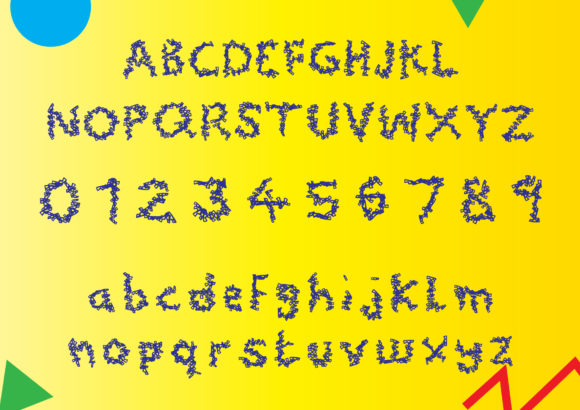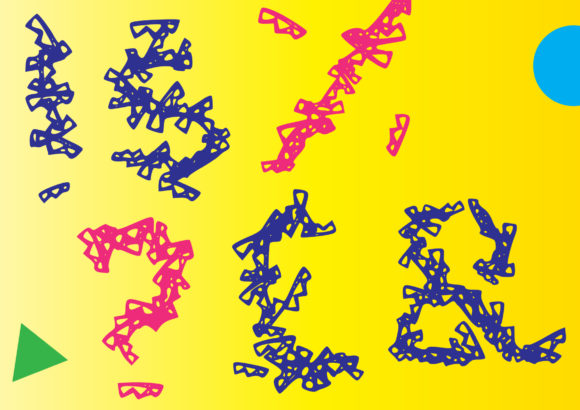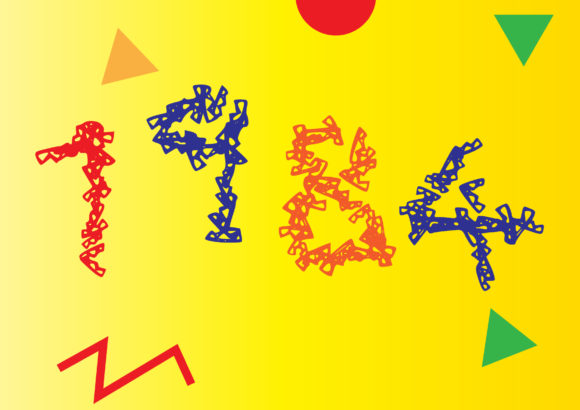
Reviving the Radical: The Eighties Style Font
The Eighties Style Font is a unique and interesting display font that embodies the spirit of the 1980s. A little bit quirky, this font looks incredibly adept on a wide variety of contexts, making it a versatile addition to any designer’s toolkit.
The Aesthetic of the Eighties
The 1980s was a decade known for its bold and vibrant aesthetic. From neon-lit cityscapes to big hair and oversized shoulder pads, the era was all about making a statement. The Eighties Style Font captures this essence perfectly, with its bold lines, geometric shapes, and playful flair.
The Eighties Style Font boasts a range of design characteristics that make it truly unique. Some of its key features include:
- Bold and geometric lines: The font’s bold lines and geometric shapes give it a futuristic feel that’s reminiscent of 1980s design.
- Playful flair: The font’s playful curves and irregularities add a touch of whimsy and personality to any design.
- High-contrast letterforms: The font’s high-contrast letterforms create a sense of drama and visual interest, making it perfect for headlines and titles.
Uses for the Eighties Style Font
The Eighties Style Font is incredibly versatile, and can be used in a wide range of contexts. Here are just a few ideas to get you started:
- Headlines and titles: The font’s bold and geometric lines make it perfect for headlines and titles, where it can add a touch of drama and visual interest.
- Logos and branding: The font’s playful flair and quirky personality make it a great choice for logos and branding, where it can help to create a unique and memorable identity.
- Posters and flyers: The font’s bold and eye-catching design makes it perfect for posters and flyers, where it can help to grab attention and draw in viewers.
- Digital graphics: The font’s geometric shapes and bold lines make it a great choice for digital graphics, such as social media graphics, infographics, and more.
Tips for Using the Eighties Style Font
Here are a few tips for getting the most out of the Eighties Style Font:
- Use it sparingly: The Eighties Style Font is bold and eye-catching, so it’s best to use it sparingly to avoid overwhelming the viewer.
- Pair it with contrasting fonts: The font’s bold and geometric lines can be paired with contrasting fonts to create a visually interesting combination.
- Experiment with colors: The Eighties Style Font looks great in bold and bright colors, so don’t be afraid to experiment and find the perfect hue for your design.
Crafting with the Eighties Style Font
The Eighties Style Font is not just for designers – it’s also a great choice for crafters and DIY enthusiasts. Here are a few ideas for crafting projects that you can use the font with:
- Handmade cards: The font’s playful flair and quirky personality make it perfect for handmade cards and gift tags.
- Scrapbooking: The font’s bold and geometric lines make it a great choice for scrapbooking, where it can add a touch of drama and visual interest to your pages.
- DIY signs: The font’s bold and eye-catching design makes it perfect for DIY signs and posters, where it can help to grab attention and draw in viewers.
The Eighties Style Font is a unique and interesting display font that’s perfect for designers and crafters alike. With its bold lines, geometric shapes, and playful flair, it’s a versatile addition to any design toolkit. Whether you’re looking to create a bold and eye-catching headline or a quirky and memorable logo, the Eighties Style Font is sure to deliver.